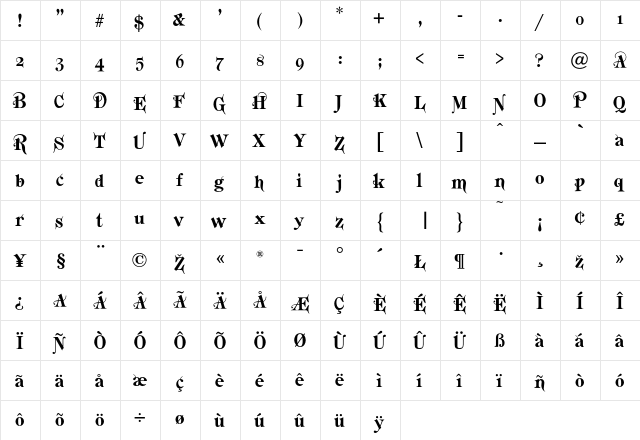
Katherine Regular
| Foundry | Digitized by Dan X. Solo. Software Dover Publications, Inc |
Design Context for Katherine Typeface
Katherine is a composed and adaptable typeface that performs quietly and consistently across a wide range of design contexts.